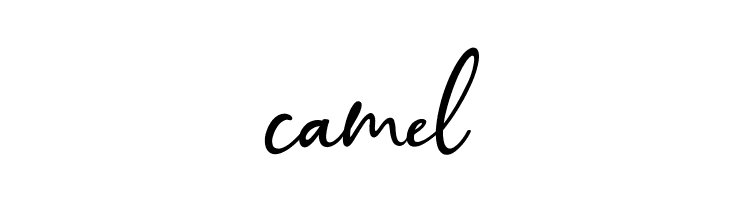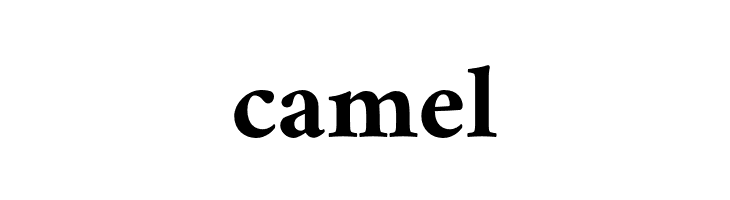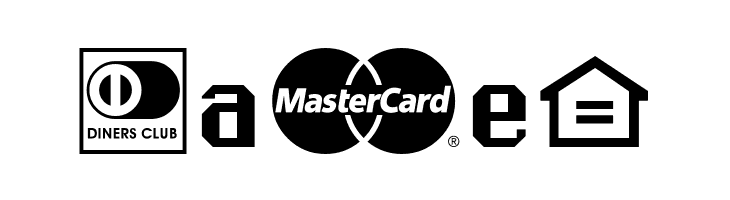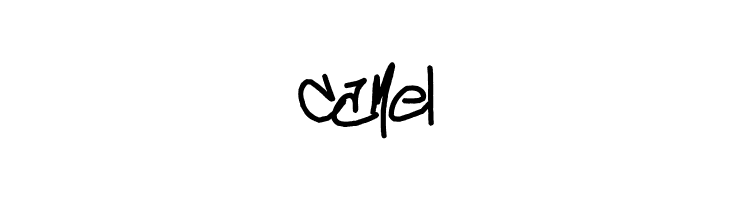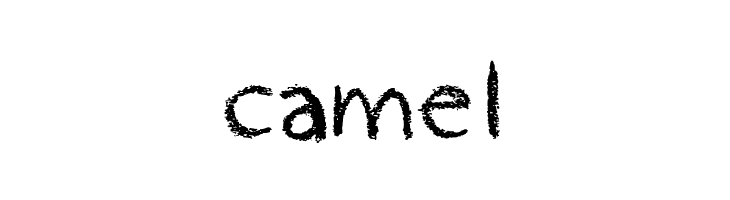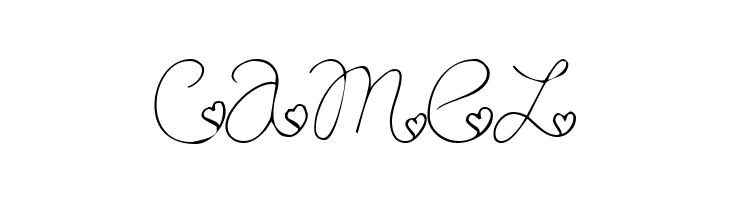
A playful, textured font with a crayon-like, handcrafted appearance.
A bold, flowing script font with dynamic curves and elegant style.
A bold, decorative dingbat font with credit card and commercial icons.
A lively and flowing script font with smooth, cursive strokes and elegant loops.
A bold, classic serif typeface with high contrast and elegant serifs.
Elegant serif font with a classic italic slant and moderate contrast.